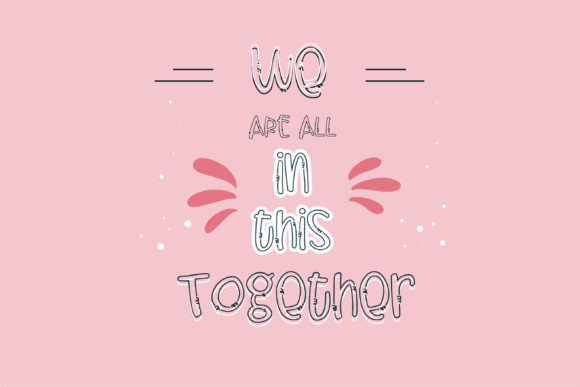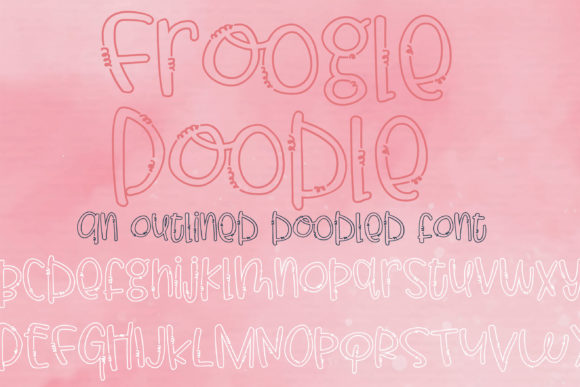
PN Froogle Font
db-ku.com - Script & Handwritten -- PN Froogle is whimsical and silly handwritten font. No matter the topic, this font will be an incredible asset to your fonts’ library, as it has the potential to elevate any creation.